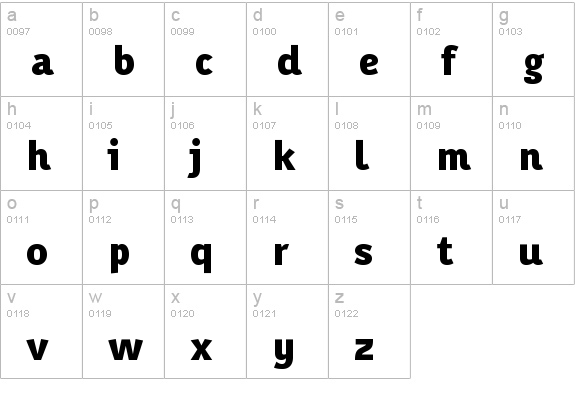
Karbid-ExtraBold is an extra-heavy, attention-grabbing variant in the Karbid typeface family \xE2\x80\x94 well suited to high-impact headlines, posters, and bold branding.
Karbid-ExtraBold is a typeface that embodies strength and boldness while maintaining a touch of elegance. Its striking design commands attention and makes a powerful statement in any project. With its thick, robust letterforms, Karbid-ExtraBold exudes confidence and authority. This font is perfect for headlines, logos, and any design that requires a strong visual impact. Its versatility allows it to be used across various media, from print to digital, ensuring your message is delivered with maximum impact. One of the most exceptional qualities of Karbid-ExtraBold is that it is freely available to download at FontsMarket.com. This means that you can access this magnificent font without any cost, allowing you to enhance your designs without breaking the bank. Whether you are a professional designer or a passionate hobbyist, Karbid-ExtraBold is a valuable asset to have in your font library. The precision and attention to detail in Karbid-ExtraBold make it a reliable choice for any project. The clean lines and well-defined curves ensure legibility, even at smaller sizes. This font is designed to make a lasting impression and leave a memorable mark on your audience. Karbid-ExtraBold offers a wide range of punctuation, numerals, and special characters, making it suitable for multilingual projects and ensuring that your message can be effectively communicated in any language. Download Karbid-ExtraBold today from FontsMarket.com and experience the power and versatility of this remarkable font. Elevate your designs and captivate your audience with this free font that combines strength, elegance, and accessibility.